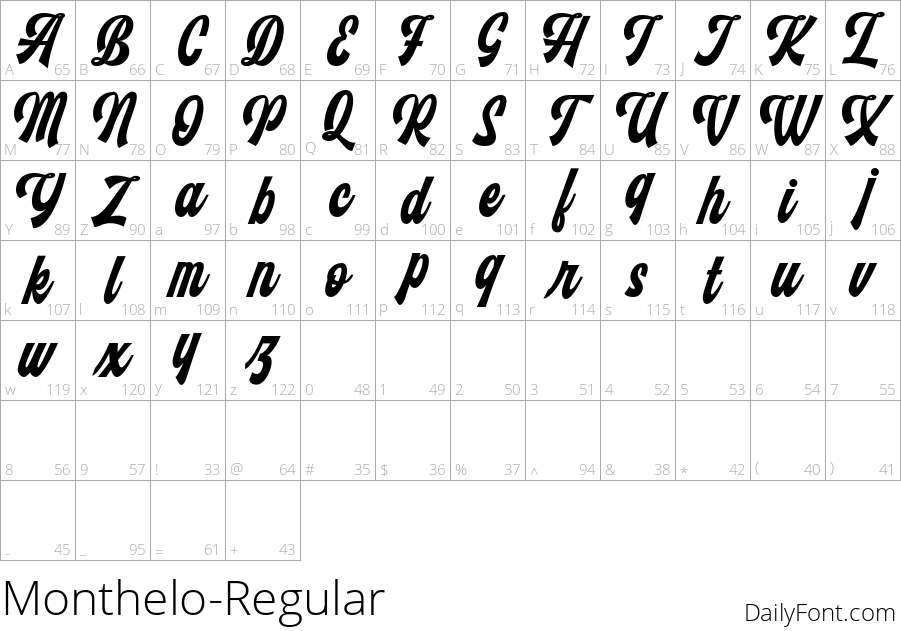
Monthelo
Monthelo is a bold script typeface from Blankids Studio, built around thick, confident strokes and dramatic capital swashes - look at the sweeping tails on the M, W, and Z in the character map above. The lowercase stays tightly joined letter to letter, giving it a fluid, brush-lettered feel rather than a delicate calligraphy look.
The heavy weight makes Monthelo a strong pick for logos, wedding invitations, and product labels where you want a script that still reads clearly at a distance - think coffee packaging, boutique signage, or a bold social media graphic. Pair it with a plain sans serif for body copy so the script stays the star of the design.